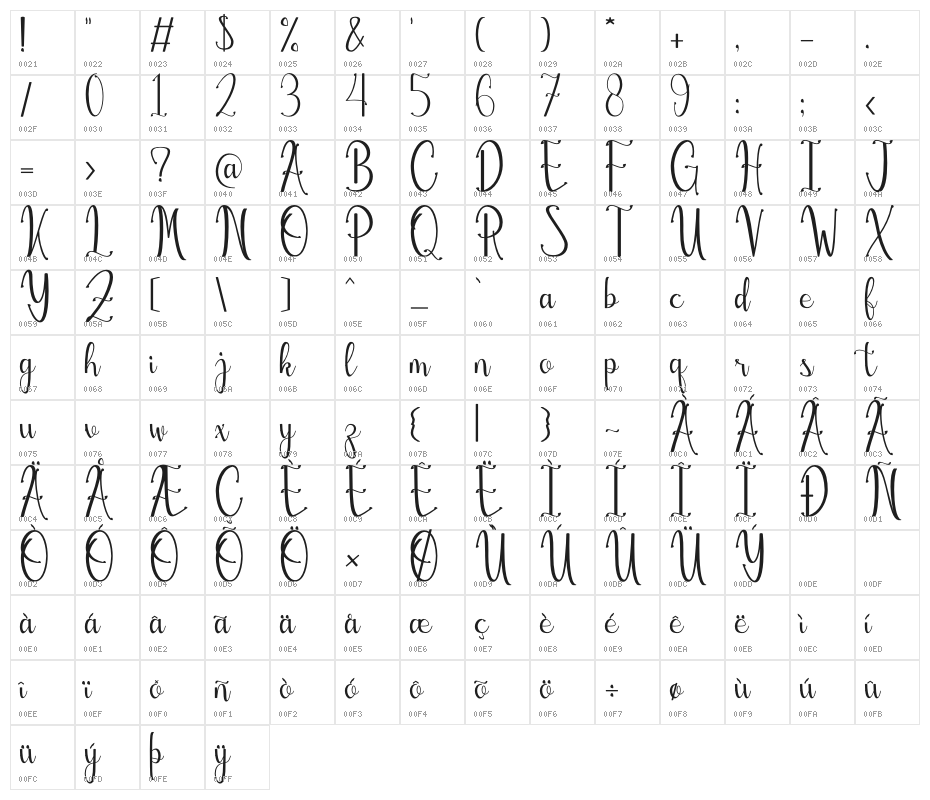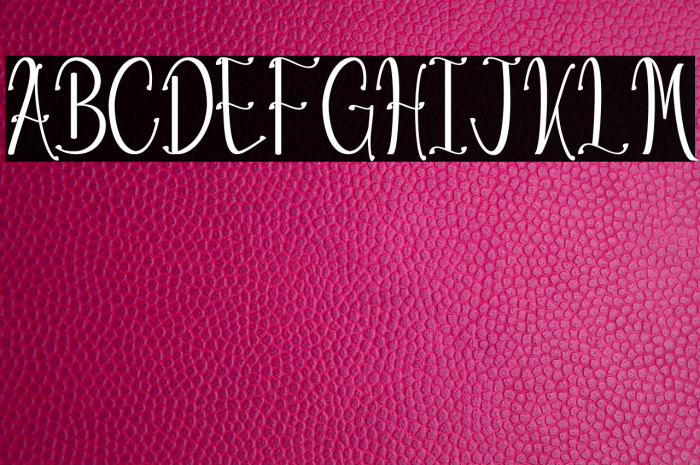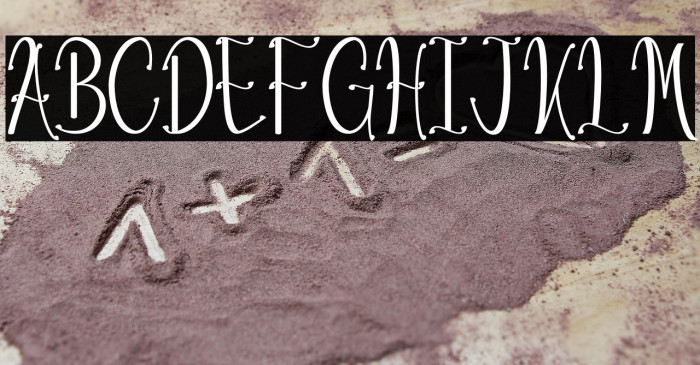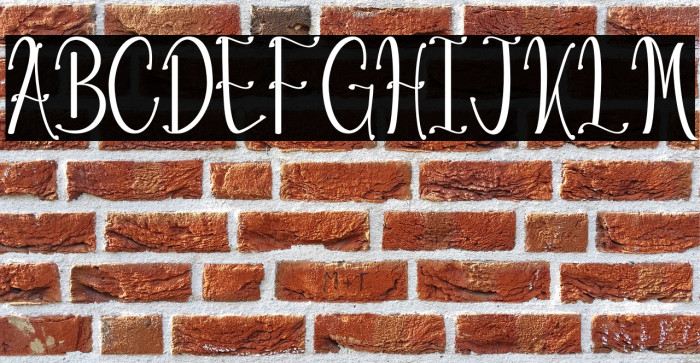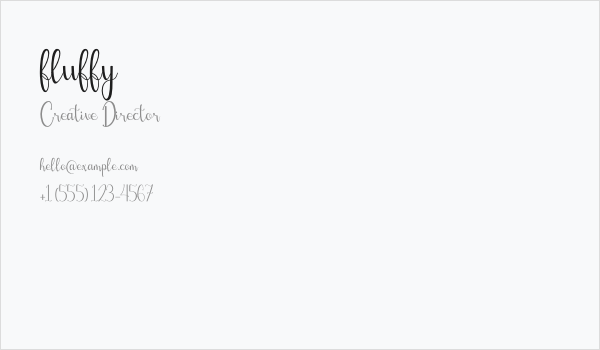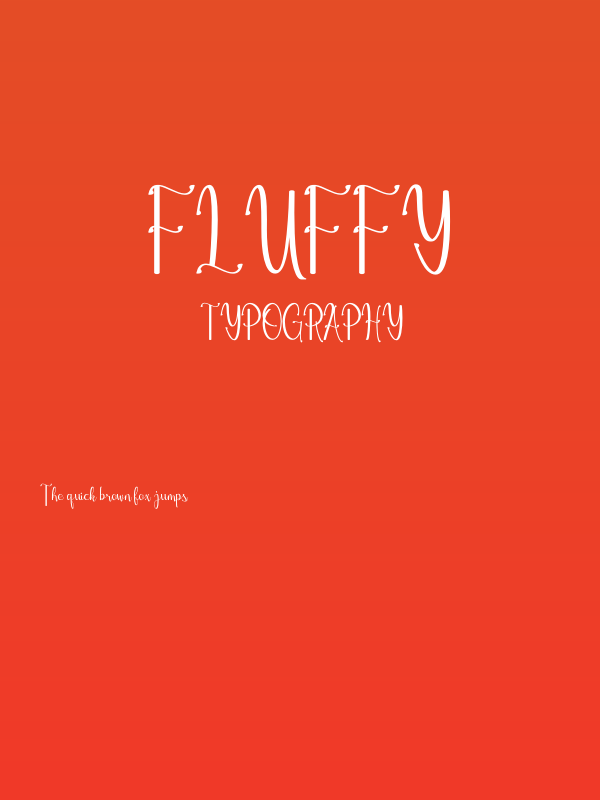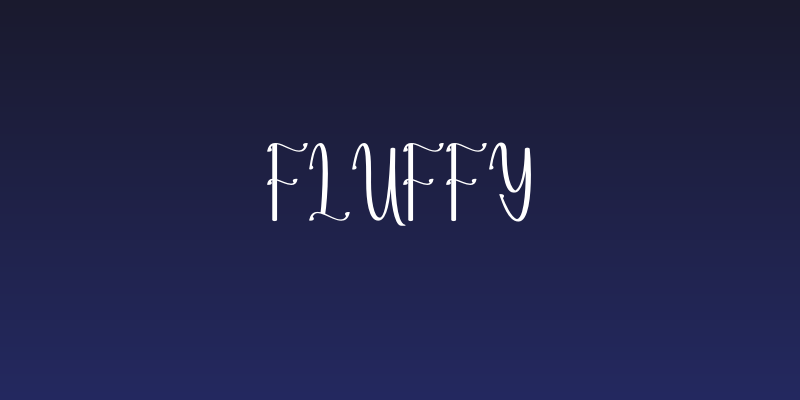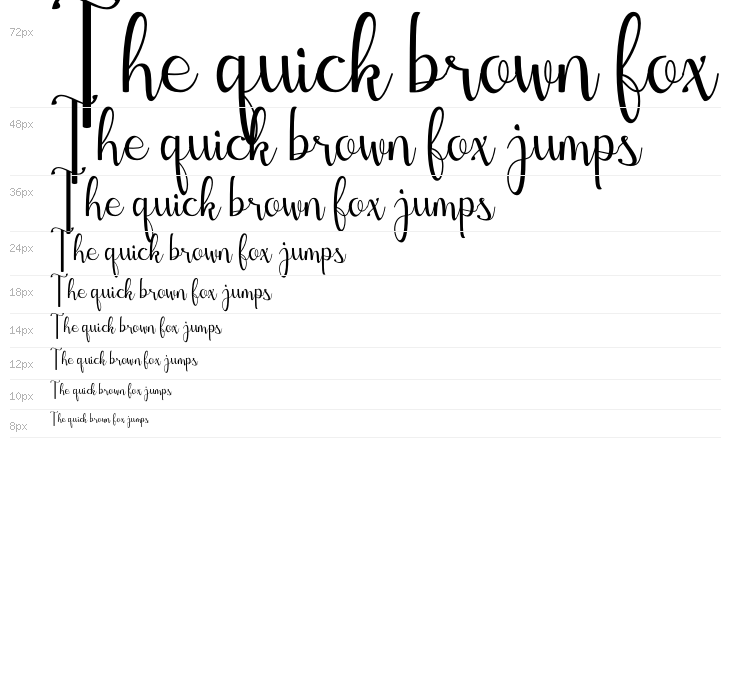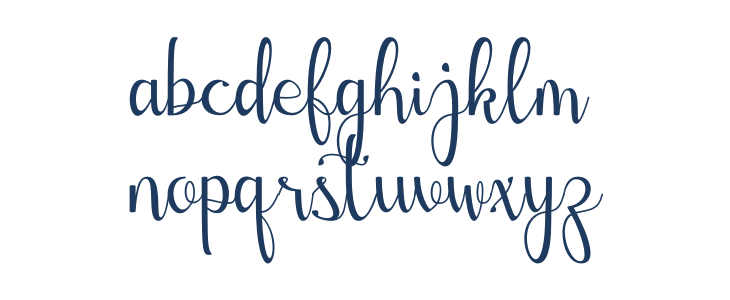
fluffy Font
fluffy Description
This font features a whimsical and playful script style with elegant, flowing lines. Each character is crafted with a sense of movement and grace, making it ideal for creative and artistic projects. The uppercase letters are tall and slender, while the lowercase letters maintain a consistent flow with charming loops and curves. The numbers and special characters are designed to complement the letters, adding a cohesive look to any text. The overall appearance is both sophisticated and approachable, making it suitable for a variety of uses.
| Use Case | Logos, Invitations, Artistic Branding |
| Proposed Projects | Ideal for wedding invitations, greeting cards, logo design, and artistic branding projects. |